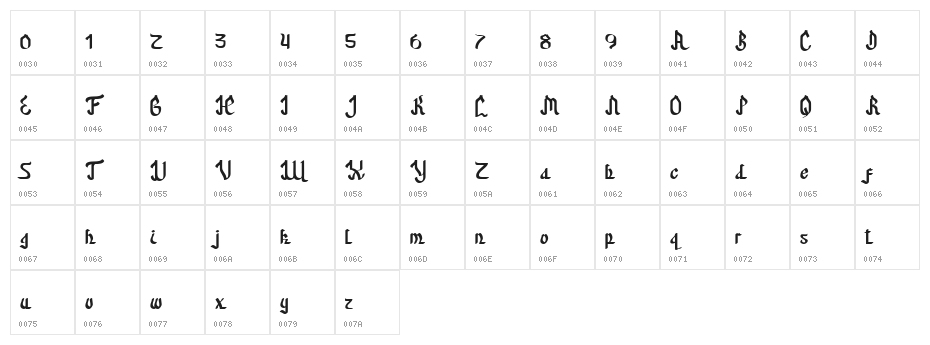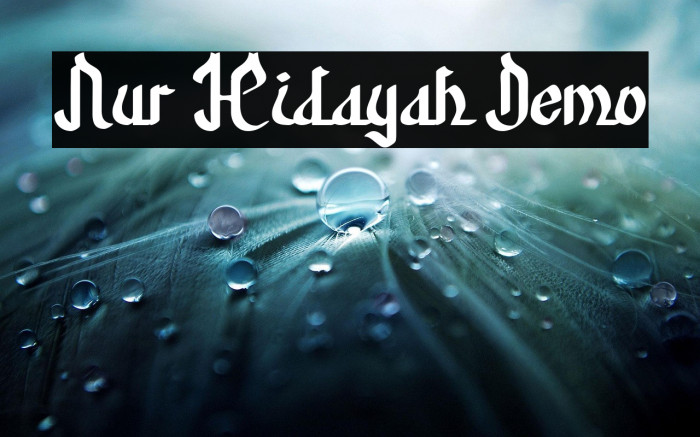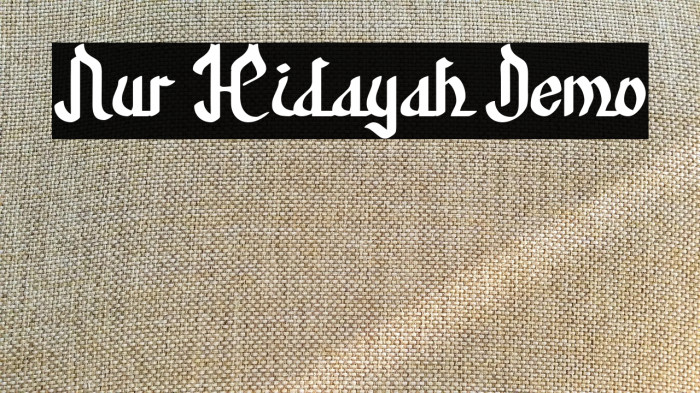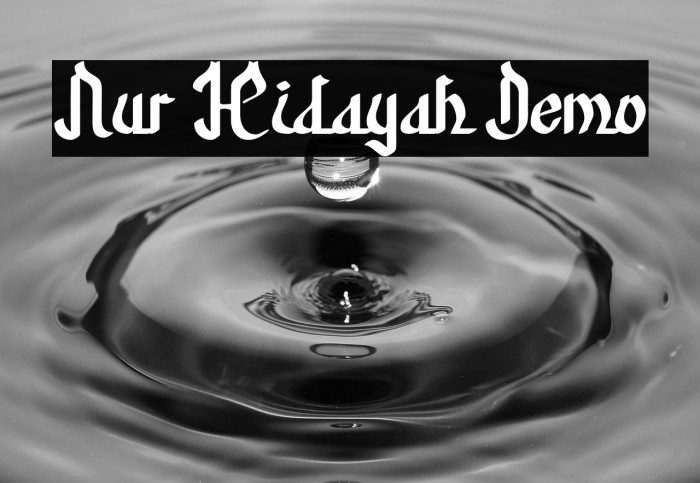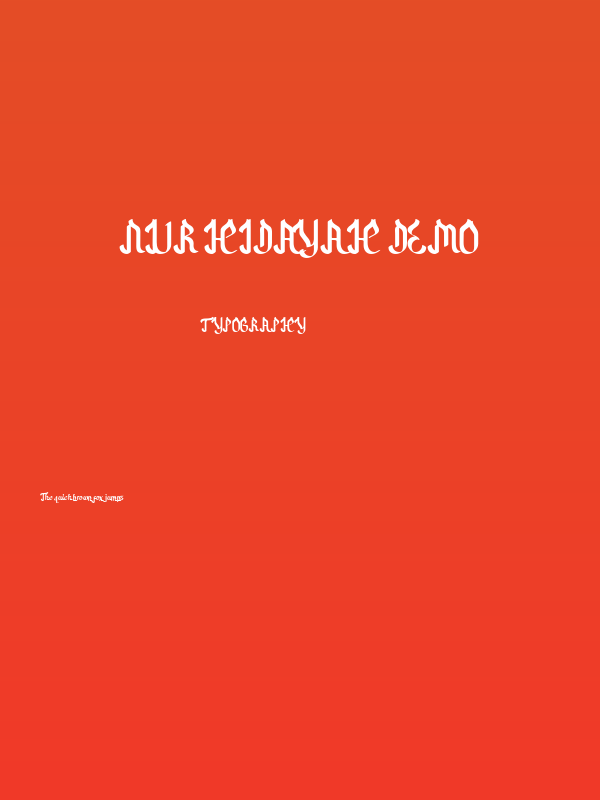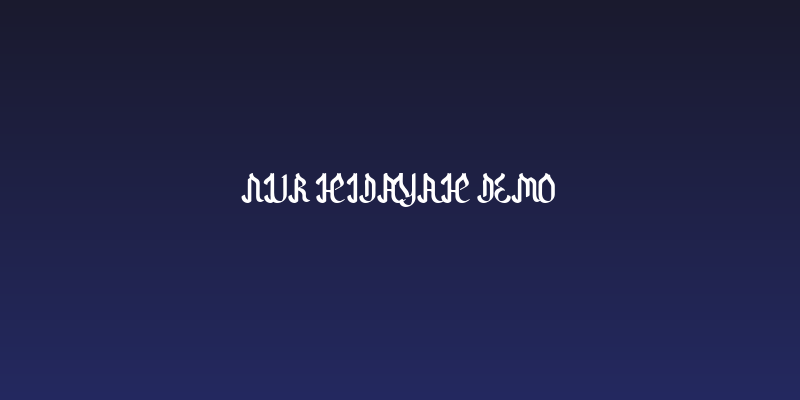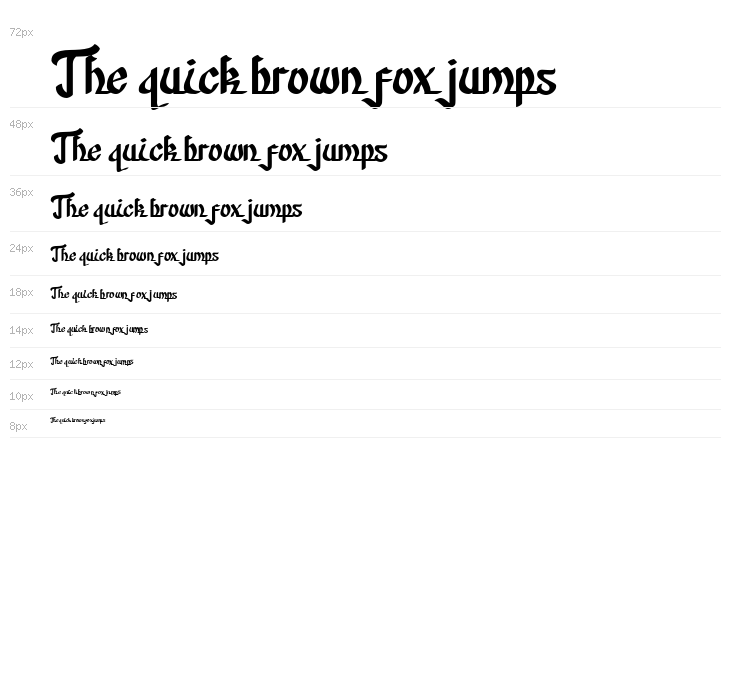
Nur Hidayah Demo Font
This font features a distinct and bold style reminiscent of traditional blackletter typography. The characters are intricately designed with sharp edges and dramatic curves, giving them a gothic and medieval appearance. The uppercase letters are particularly striking, with elaborate flourishes and a strong presence. The lowercase letters maintain the same stylistic elements but are slightly more subdued, providing a nice balance. Numbers and special characters are consistent with the overall theme, ensuring uniformity across all text. This font's unique design makes it ideal for projects that require a historical or formal touch.
Overall StyleVintage
Use CaseLogos, Headlines, Formal Invitations
Proposed ProjectsIdeal for historical documents, formal invitations, logos, and branding that require a classic or medieval aesthetic.